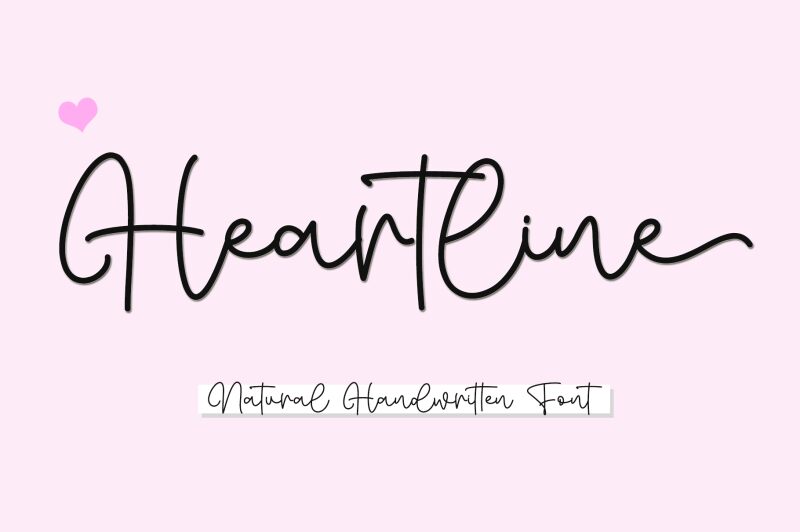
Heartline, a captivating handwritten font by Letterafa Studio, adds a touch of elegance and creativity to any project. With its light weight, Heartline exudes a sense of delicacy and sophistication. Perfect for wedding invitations, feminine branding materials, or heartfelt quotes on social media graphics. Its fluid strokes and graceful curves create an organic feel that suits nature-inspired designs flawlessly. Whether you're working on a logo for a boutique floral shop or crafting beautiful stationery for romantic occasions, Heartline will infuse your creations with a unique charm that captivates hearts.